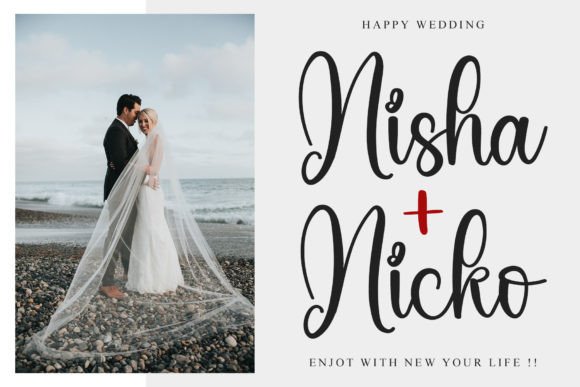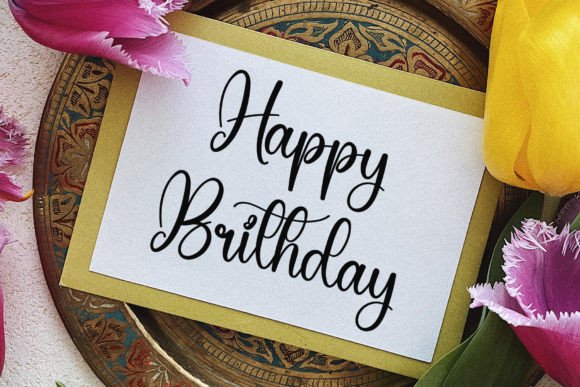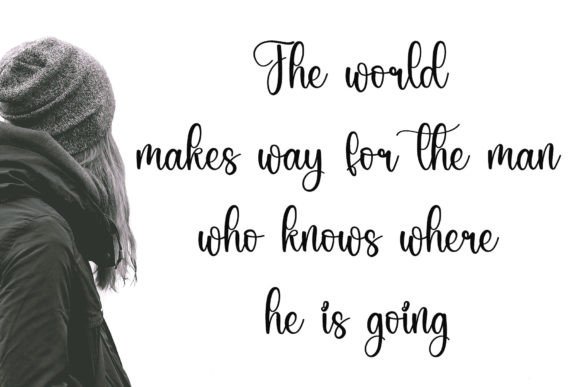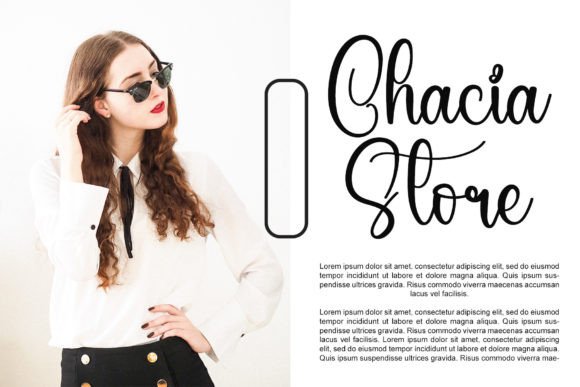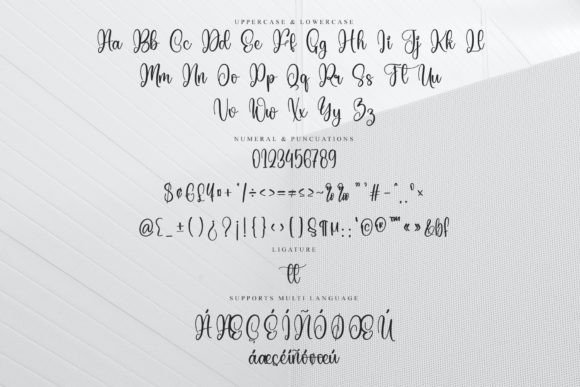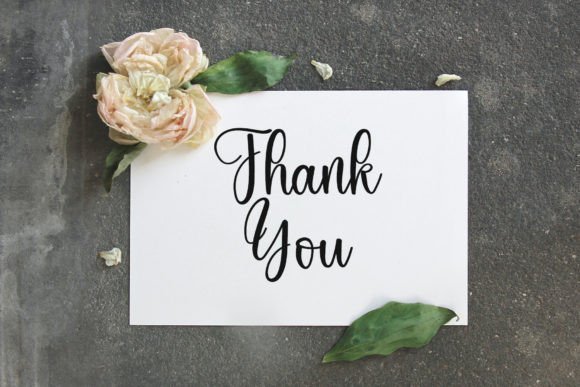
The Magical World of Country Font: Elevating Your Designs with Elegance
I’ll never forget the moment I stumbled upon the perfect font for a client’s wedding invitation project. I had been searching for hours, trying out different fonts, but none seemed to capture the essence of rustic elegance I was looking for. That was until I discovered Country, a beautiful handwritten font that instantly elevated my design to a whole new level. If you’re a designer, crafter, or creative hobbyist looking for a font that can add a touch of sophistication to your projects, then you’re in the right place!
A Personal Review: What I Love About Country Font
Country font is a carefully crafted handwritten font that exudes elegance and charm. Here are some things I love about it:
- ✨ Unique and quirky feel: Country font has a distinct personality that sets it apart from other fonts. Its handwritten feel makes it perfect for designs that require a personal touch.
- ✅ Highly legible: Despite its elegant and cursive nature, Country font is surprisingly easy to read, making it suitable for body text and headings.
- 💫 Versatile: Country font can be used for a wide range of projects, from wedding invitations and social media graphics to DIY crafts and signage.
While Country font is an excellent choice for many projects, there are a few quirks to be aware of:
- 🤔 Limited use of uppercase letters: Country font is designed primarily for lowercase letters, so it’s best to use it for titles or headings that don’t require extensive uppercase text.
- ⚠️ Glyph limitations: While Country font has a range of glyphs and stylistic alternates, it may not have every special character or symbol you need. Be sure to check the font’s capabilities before committing to a project.
The Story Behind Country Font
Country font was designed by a team of typographers who wanted to create a font that captured the essence of rustic elegance. Inspired by traditional handwritten scripts and modern calligraphy, Country font is the result of careful craftsmanship and attention to detail.
| Font Name | Country Font |
| Author | YanStudio |
| What is Country font best used for? | Country font is perfect for designs that require a touch of elegance and sophistication, such as wedding invitations, social media graphics, and DIY crafts. |
| Is Country font suitable for body text? | While Country font is highly legible, it’s best used for headings and titles. For body text, consider using a more traditional font. |